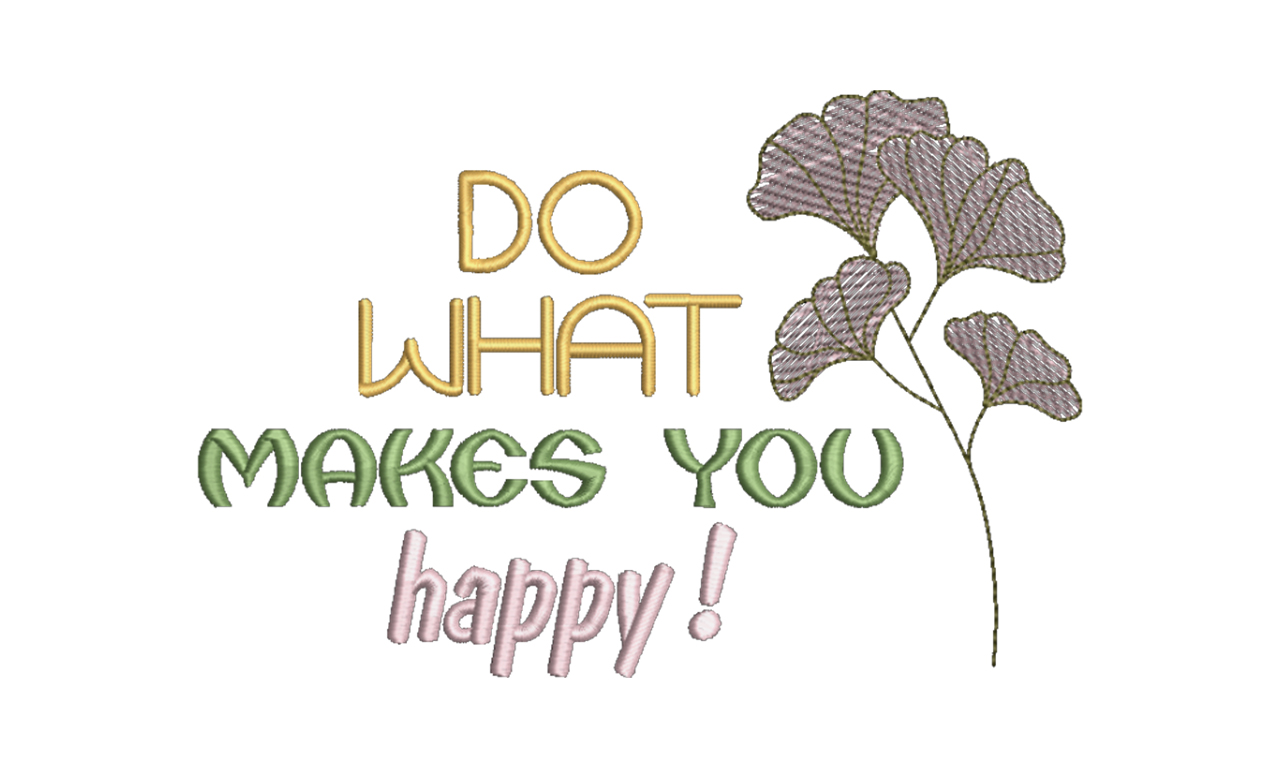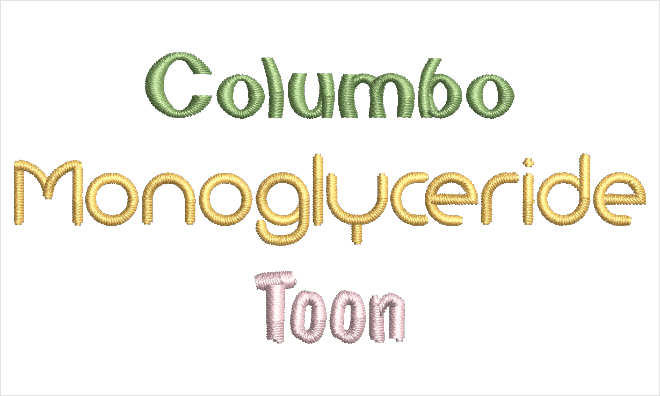
Font Pack #19 - Bold Sans Serif
This collection brings you bold to semi-bold fonts. A little flare or not, you can get them both in this collection. Great for children’s projects or where you want a medium size letter but want to keep the bold look.
Columbo
A bold font with a curved flare. Great to use for children’s projects
Monoglyceride
Semi-bold and easy to read.
Toon
Works good for med sized fonts where you want a bold look but keep the text small and easy to read